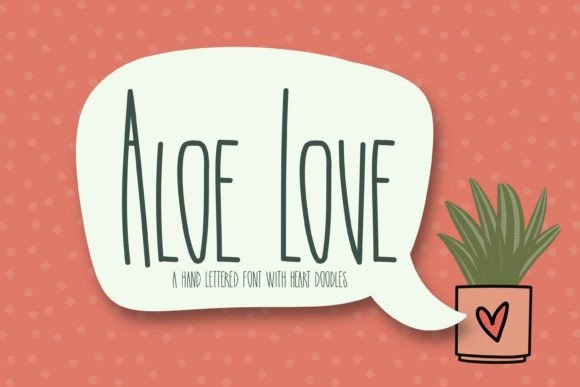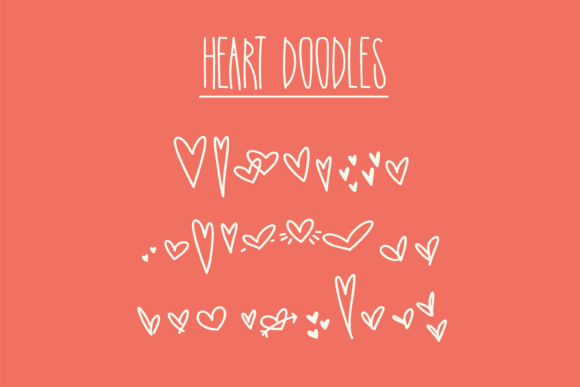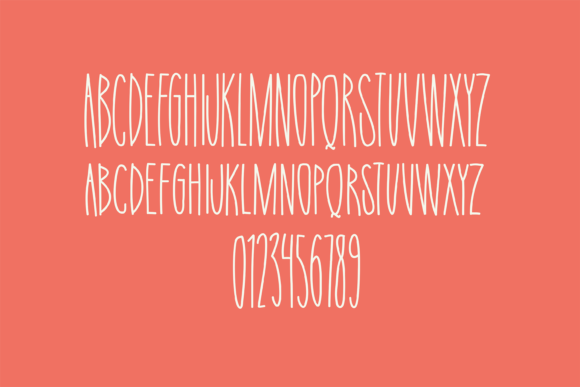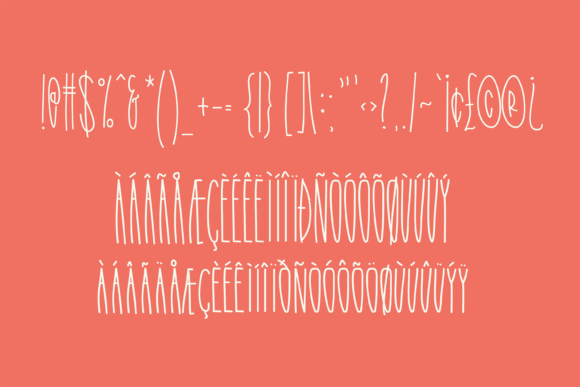
Aloe Love Font
About the Aloe Love Font
Experience the unique personality of Aloe Love Font, a font designed for impact. Meet Aloe Love, a tall and slender hand-drawn font that’s brimming with quirky charm! With its playful, elongated lines and carefree feel, this font brings a fresh and lighthearted vibe to any project. Perfect for fun headlines, modern invitations, or a whimsical touch on packaging, Aloe Love gives your designs a breezy, handmade flair. It’s the go-to font when you want something simple, yet full of personality, whether you’re working on creative crafts or adding a unique twist to your everyday projects!